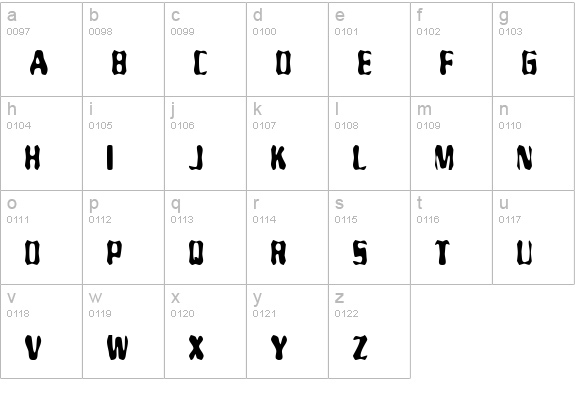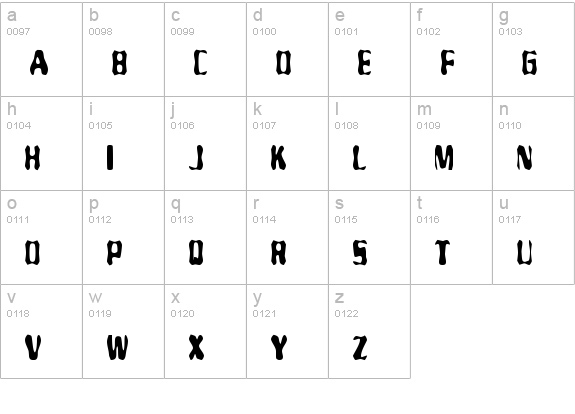
Mayaku Font Details
Mayaku font is a stylish and modern typeface that exudes elegance and sophistication. Its sleek lines and unique design make it perfect for a wide range of projects, from branding to editorial design. This versatile font is sure to make your text stand out and leave a lasting impression on your audience. The best part about Mayaku font is that it is completely free to download at FontsMarket.com. Now you can elevate your design projects without breaking the bank. Don't miss out on this opportunity to add a touch of sophistication to your work with Mayaku font. Download it today and see the difference it can make in your designs.